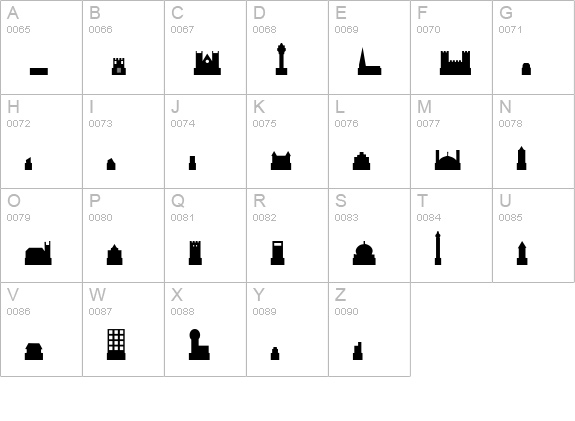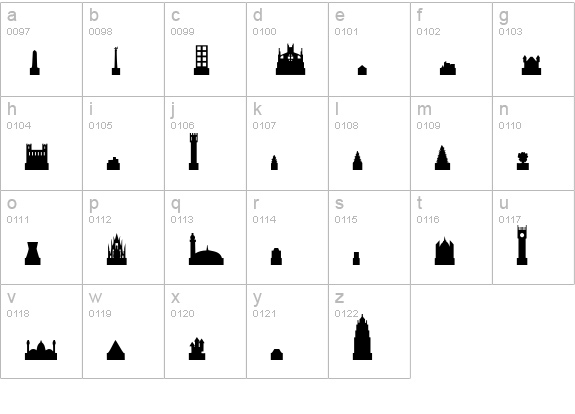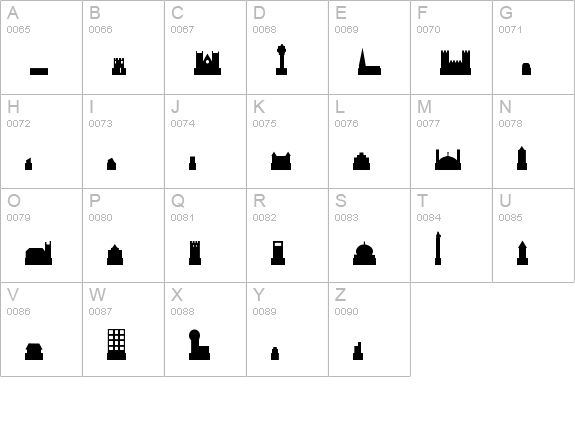
Cityscape™ font is a modern and sleek typeface perfect for capturing the dynamic energy of a bustling city skyline. Its sharp lines and geometric forms evoke the architectural elements of a metropolis, making it an ideal choice for projects that require a contemporary urban aesthetic. With its bold and stylish design, Cityscape™ font is versatile and eye-catching, suitable for a wide range of design applications. What makes Cityscape™ font even more appealing is that it is available for free download at FontsMarket.com. This means that you can easily access this premium quality font without any cost, making it a valuable asset for your design projects. Whether you are working on branding, advertising, or any creative endeavor that requires a modern and edgy look, Cityscape™ font is sure to elevate your designs to new heights. Download Cityscape™ font today and bring a touch of urban sophistication to your work.